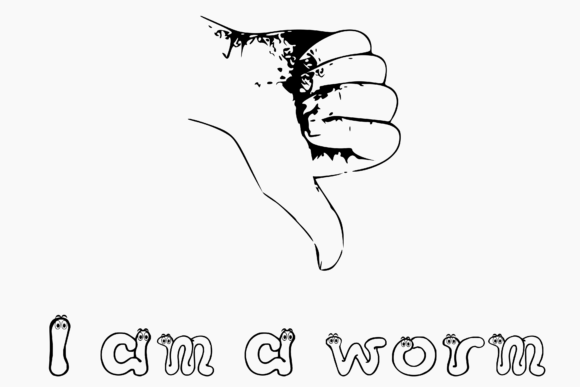
Unleash creativity with I Am a Worm Font, a display font that's a game-changer. Step into a captivating realm of typographic wonders, where eccentricity and boldness collide. Prepare to leave an indelible impression with this gem that will set your designs ablaze.
Experience a font that reflects and extends your personality, one that dares to be different. I Am a Worm Font isn't just a display font; it's a gateway to limitless expression. Embrace your distinct style as you craft eclectic branding, dive into uncharted experimental designs, and compose headlines that leave an unwavering impact.
Immerse yourself in an artistic journey where uniqueness beckons. Embrace the unconventional form of I Am a Worm Font, an avant-garde display font that defies norms and welcomes adventure. It's a font that inspires, sparks ideas, and ignites the imagination. Its quirky design breaks boundaries, inviting you to forge a visual spectacle that's uniquely yours.
Dive into the world of unconventional beauty with I Am a Worm Font. Intellecta Design, its visionary creator, masterfully crafted this font to be an emblem of audacity and self-expression. Its unconventional features are a canvas for your creativity, empowering you to create experimental designs that break free from the mundane. This display font is an invitation to push boundaries and embark on a typographic adventure.